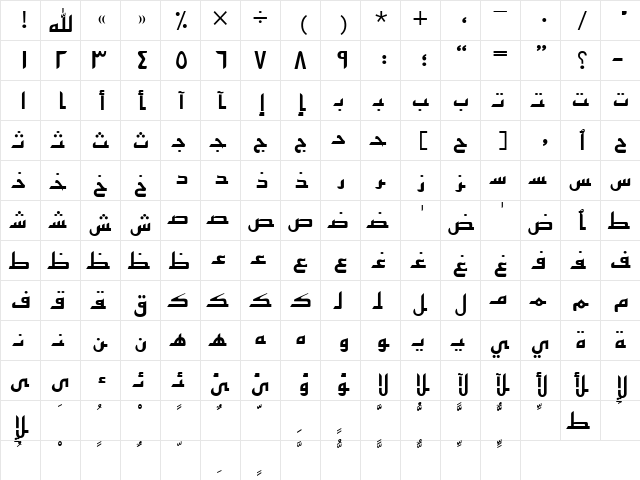
ArabicSans Bold Font Preview
ArabicSans Bold
ArabicSans Bold Font Details
Design Context for ArabicSans Typeface
ArabicSans is a composed and adaptable typeface that performs quietly and consistently across a wide range of design contexts. The heavy weight commands attention and anchors typographic hierarchies.